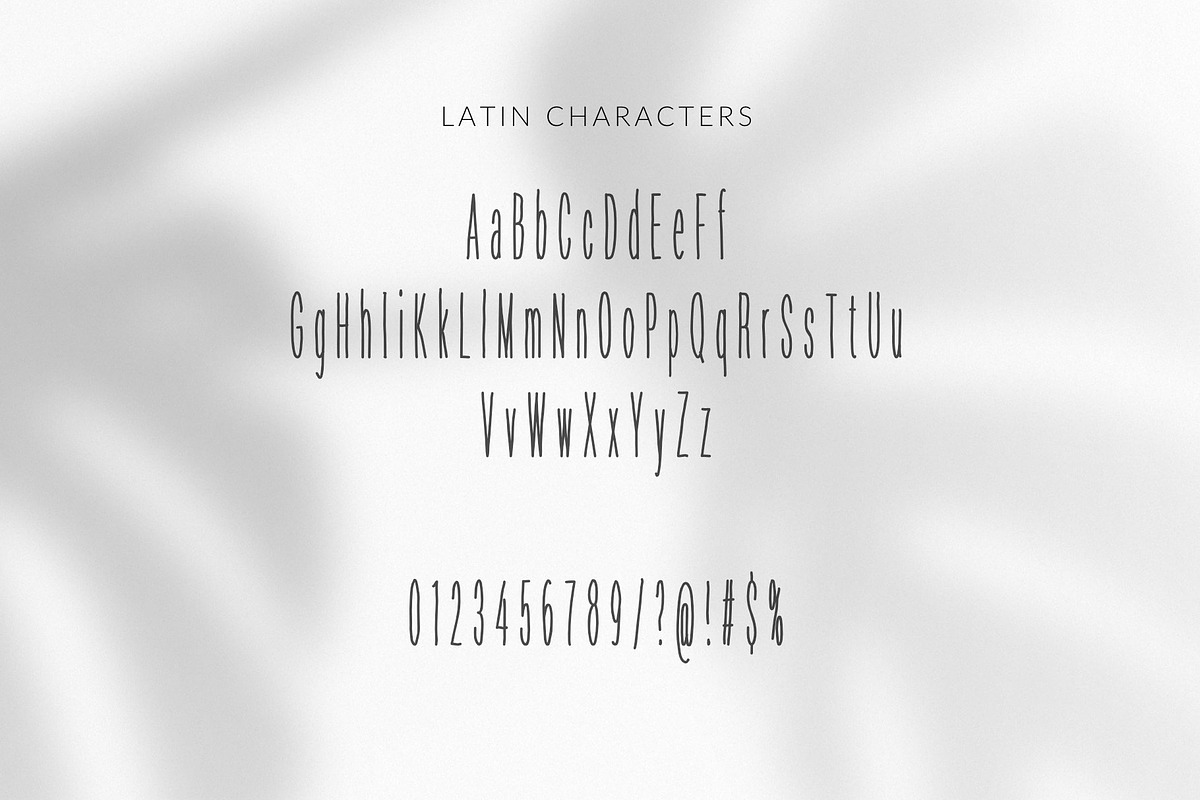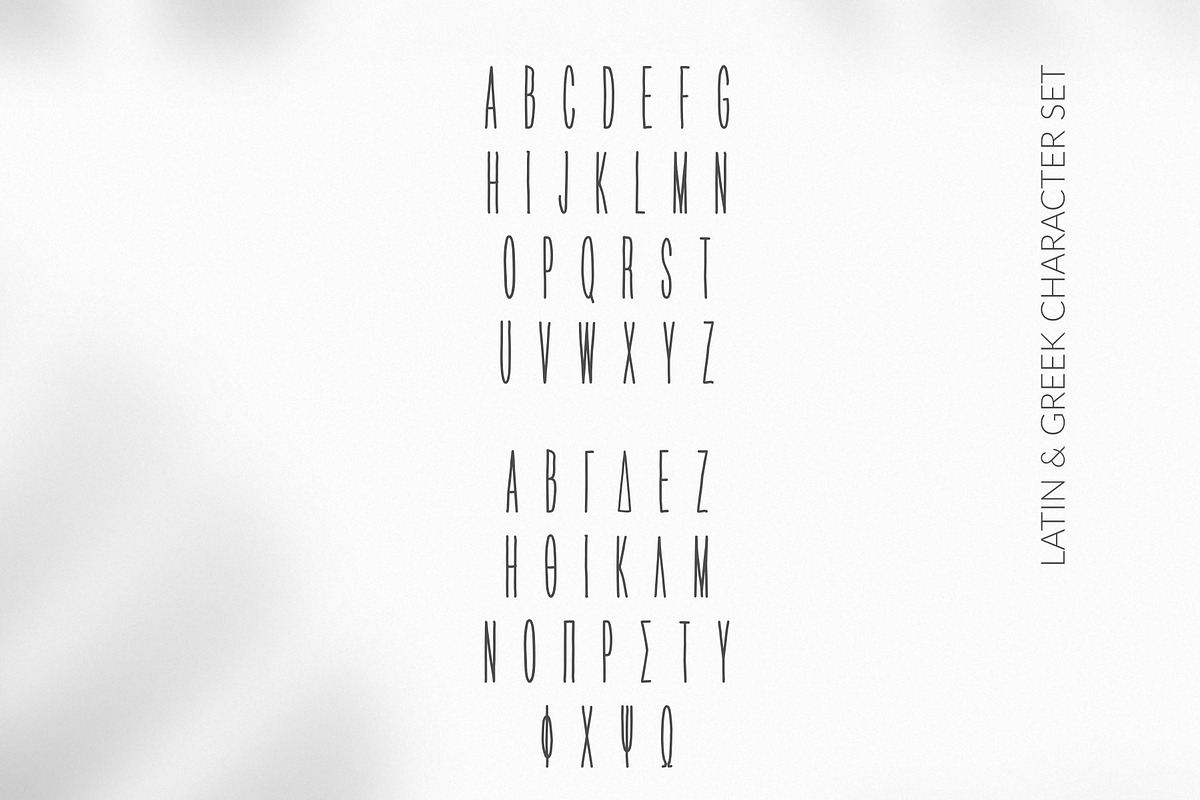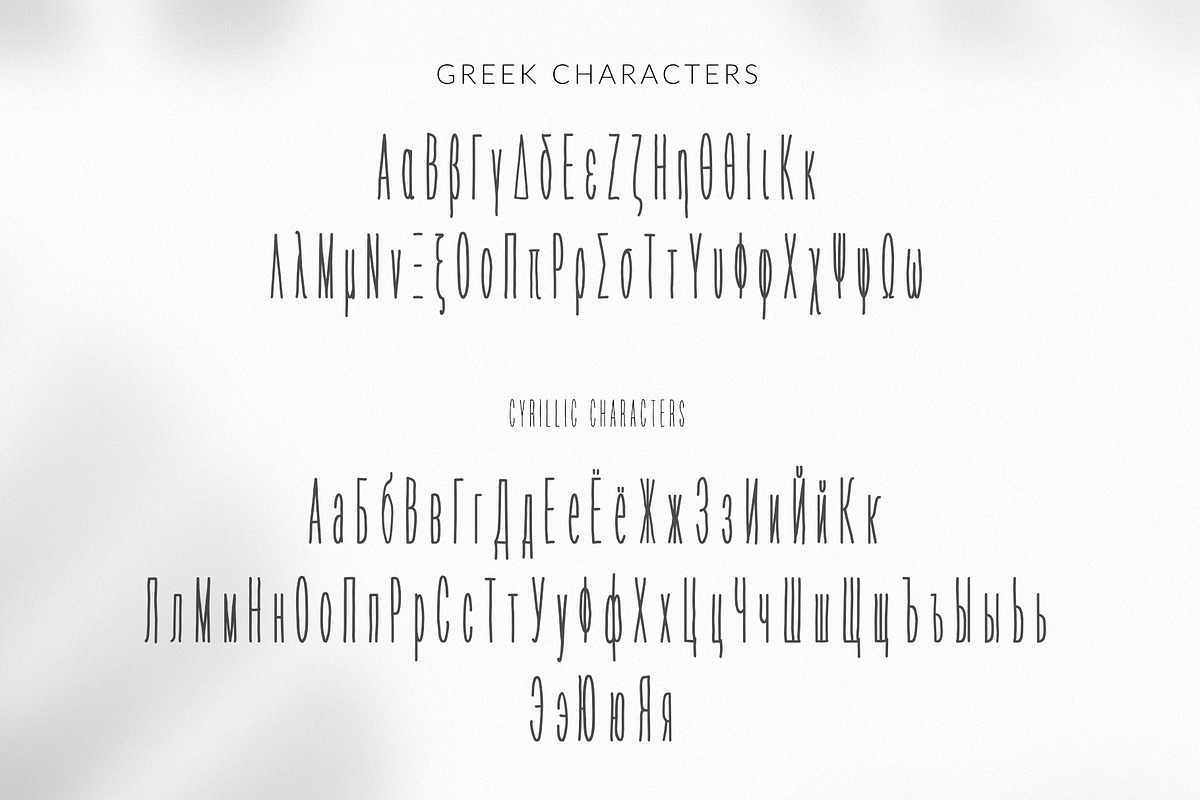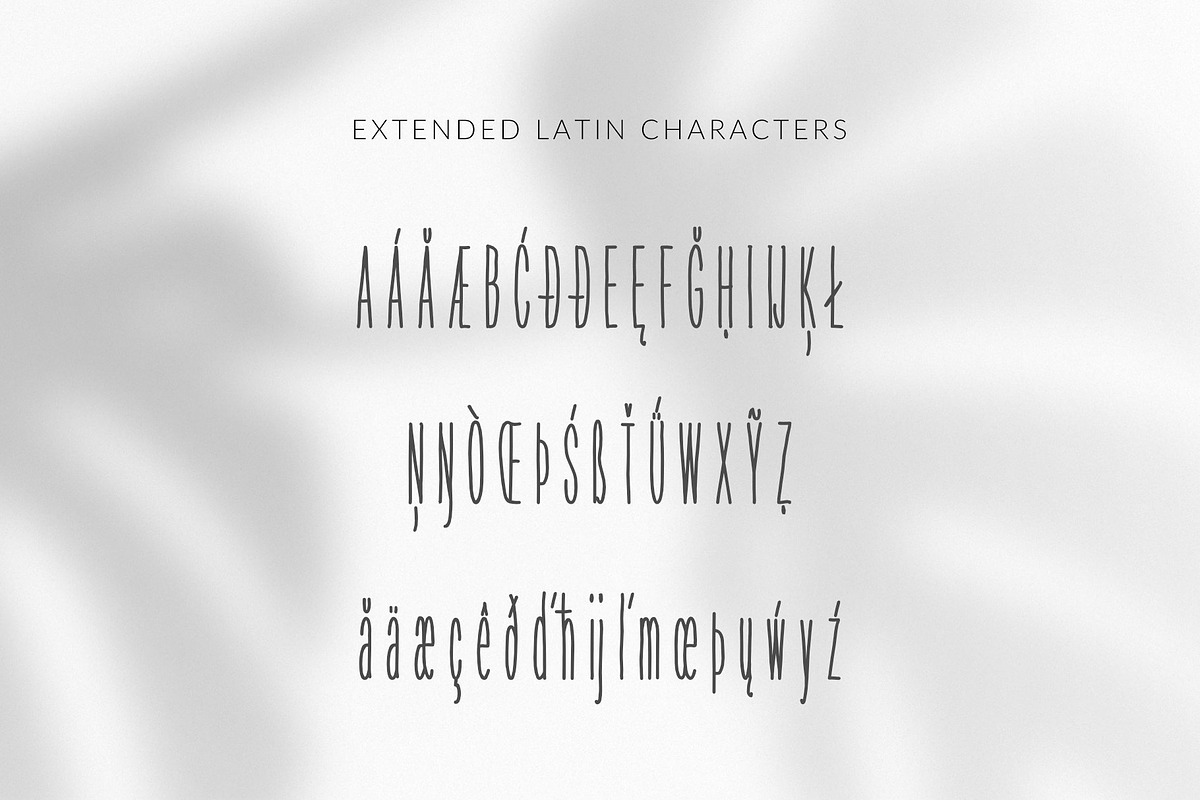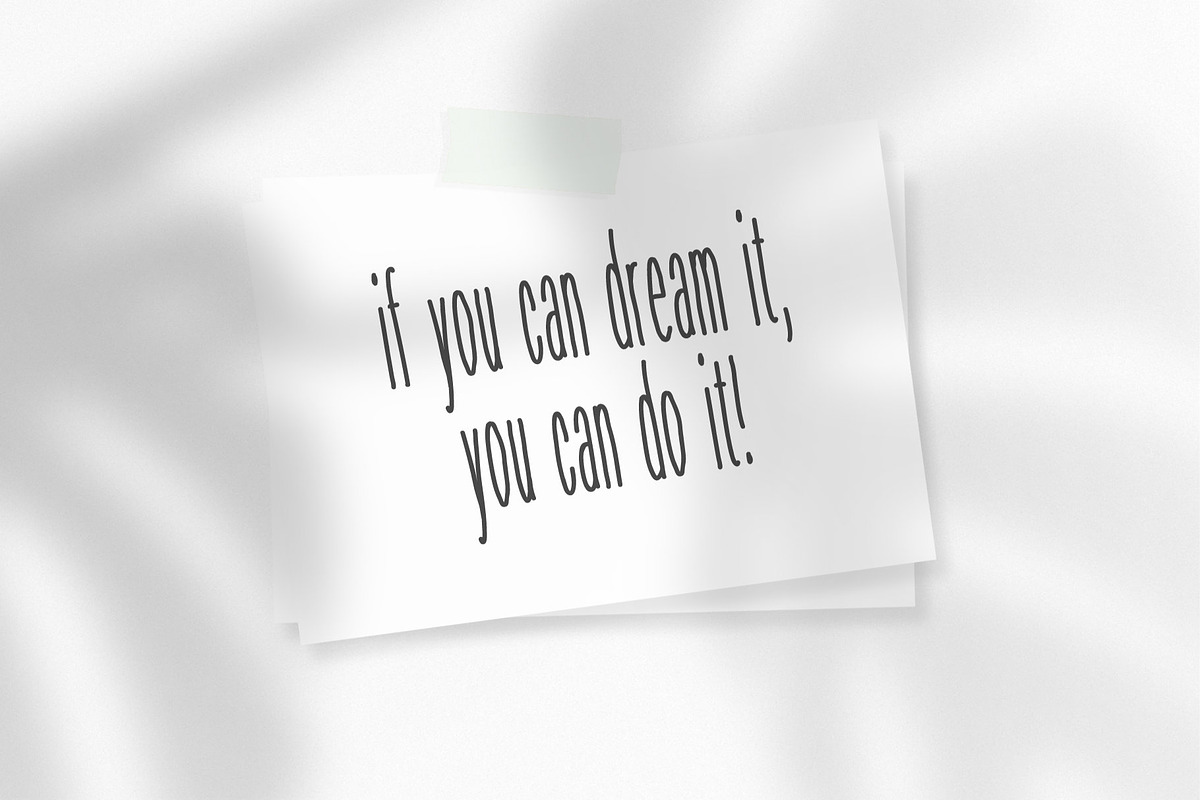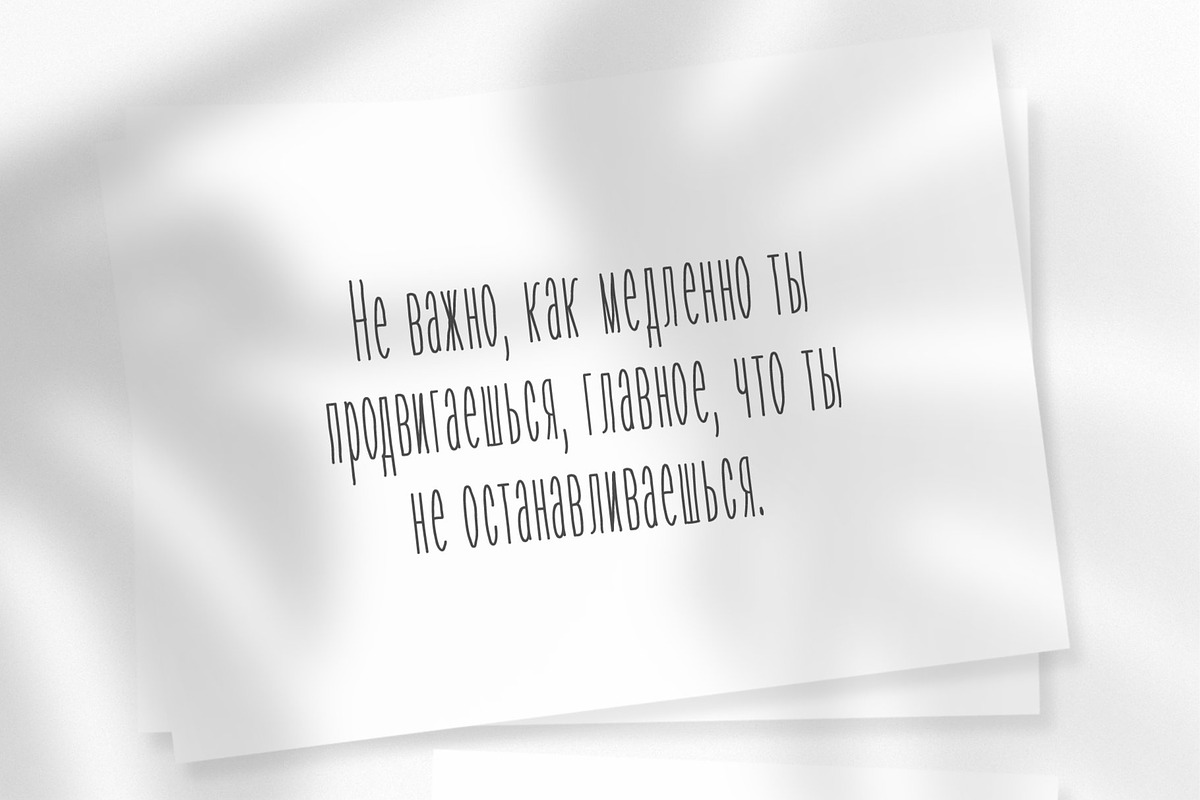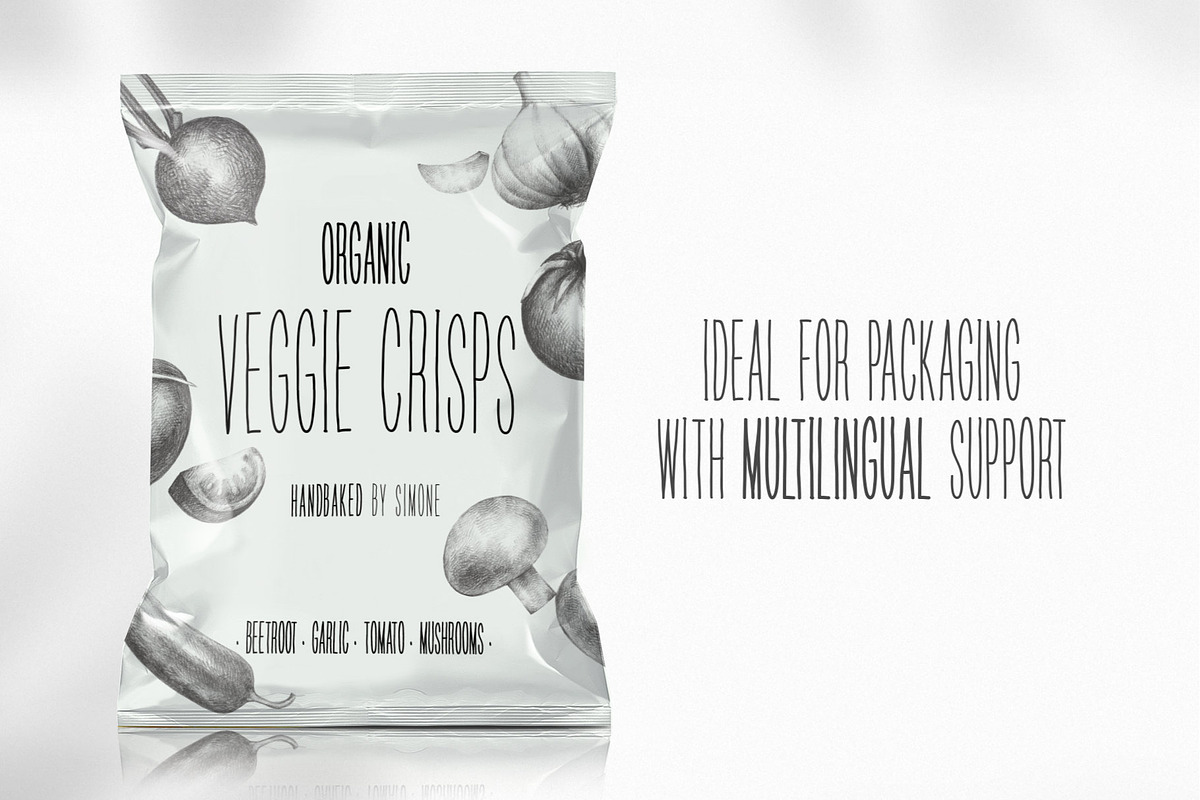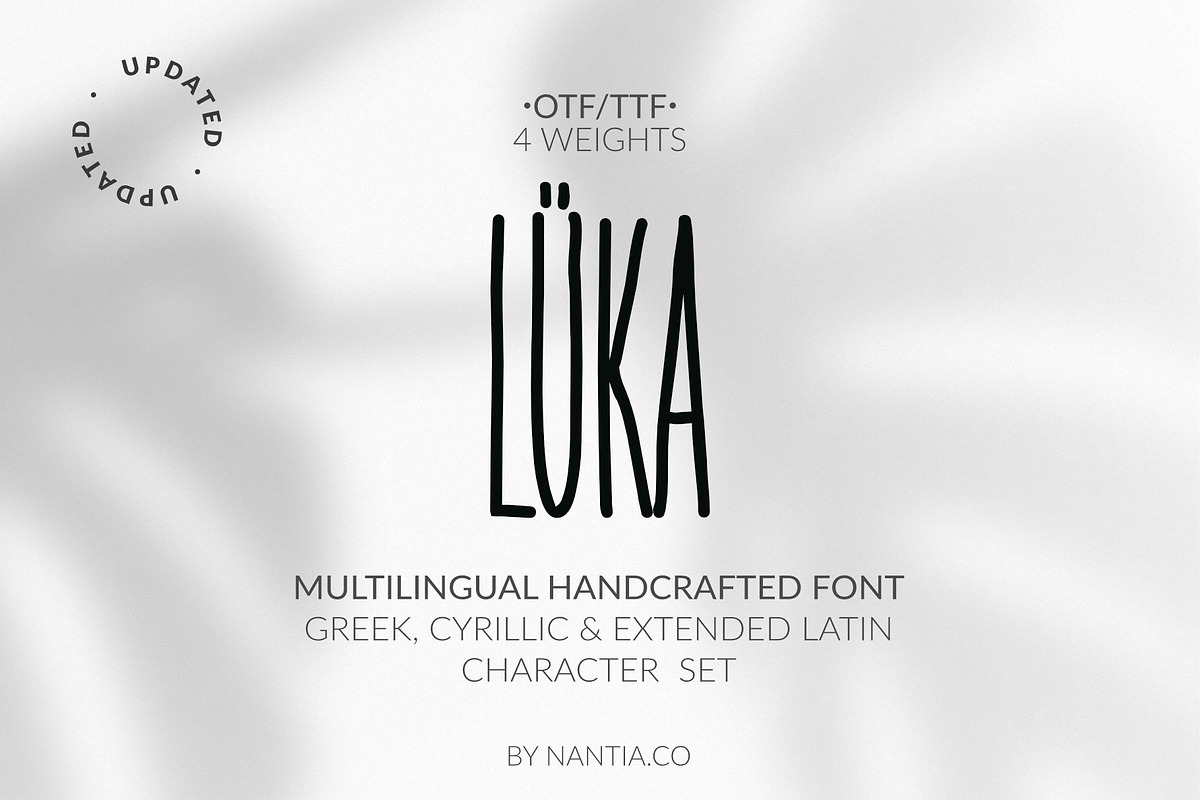
HandWritten Greek Cyrillic Font
HandWritten Greek Cyrillic Font by Greek fonts by nantia.co is a font selected for branding, posters, packaging, typography.
- HandWritten Multilingual Font LÜKA HandWritten Multilingual Font LÜKA, is an elegant display font, with Greek, Cyrillic and Latin character
- It is a unique font that has a great variety of applications with multilingual support.
- In an nutshell Luka-Pro Font is a hand-drawn, decorative, san serif font in 4 weights including: Extended Latin character set, Greek charact
Why HandWritten Greek Cyrillic Font is worth a look
HandWritten Greek Cyrillic Font by Greek fonts by nantia.co fits naturally into Branding, posters, packaging, typography.